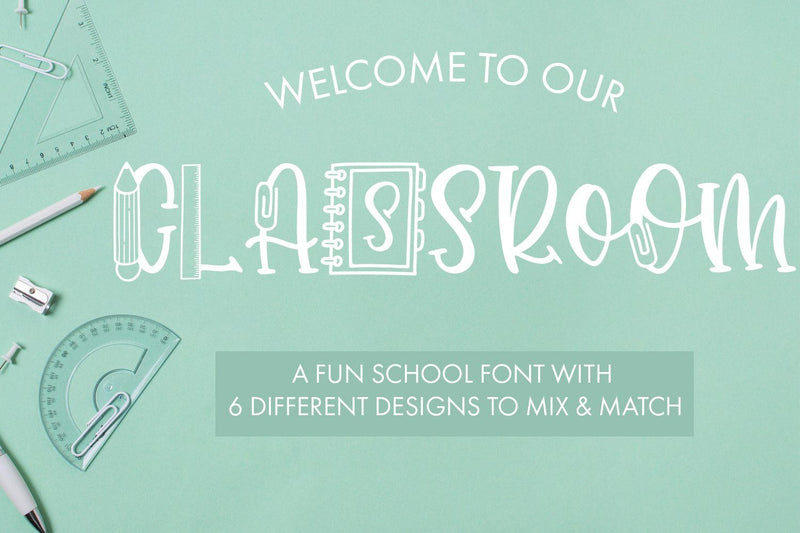
Classroom A Fun School Font With 6 Designs
Classroom is the perfect School inspired font that comes with 6 different designs per letter and is perfect to use for all your school themed projects or teacher gifts. This font will definitely spark up you designs and diy:s for your personalised school themed projects and will be a perfect gift for those who are just starting school or for the hard working teachers.
You can access the standard font via A-Z and a-z. The remaining 4 designs are available as stylistic alternates for upper cases. This font can be used for anything such as T-Shirt designs, phone cases, greeting cards, invitations, mugs and so much more! Be creative but most importantly have fun!
- Classroom - Comes with Uppercase A-Z and lowercase a-z letters, 0-9 numbers, stylistic alternates, limited punctuation and supports Western European Languages